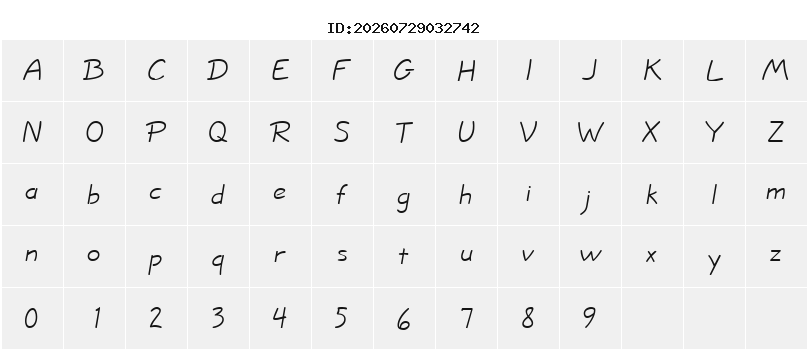
Jolt Preview
• Font Name: Jolt
• Font ID: Altsys Fontographer 4.1 Jolt Normal
• Full Font Name: Jolt Normal
• Version: Altsys Fontographer 4.1 1/5/95
• PostScript Name: JoltNormal
• Character Count: 220
About Jolt.ttf
Jolt.ttf is a modern, elegant sans-serif font designed for ultimate readability and visual harmony. Perfect for branding, headlines, web design, and print materials.